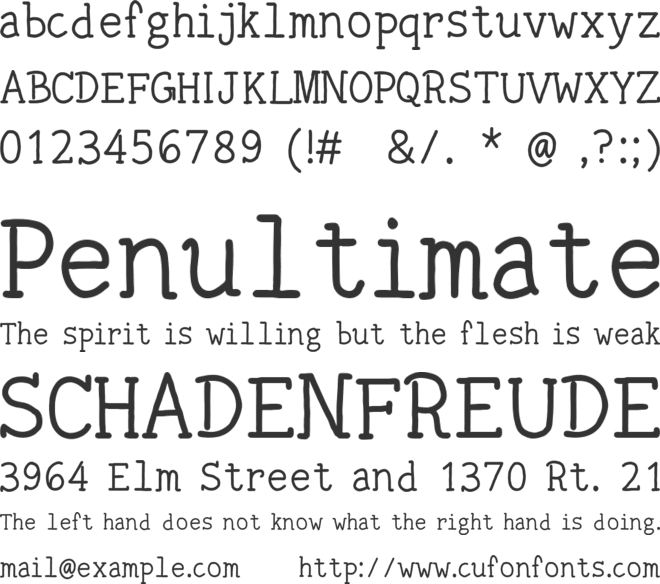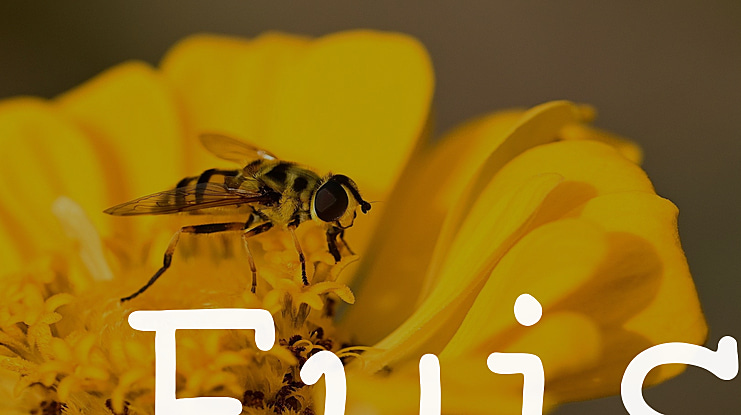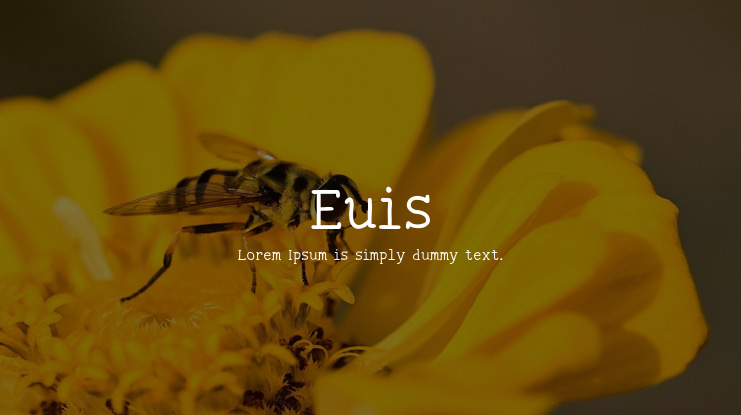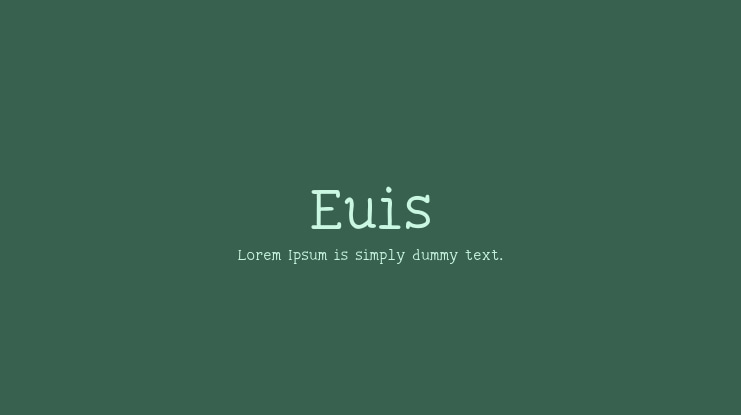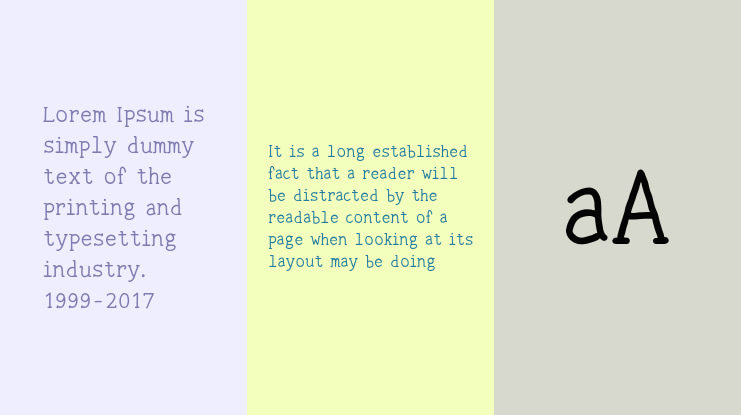
Euis Font
Euis is a cool and simple slab serif font. Its natural and neat style makes it incredibly fitting to a large pool of designs. The only limit is your imagination!